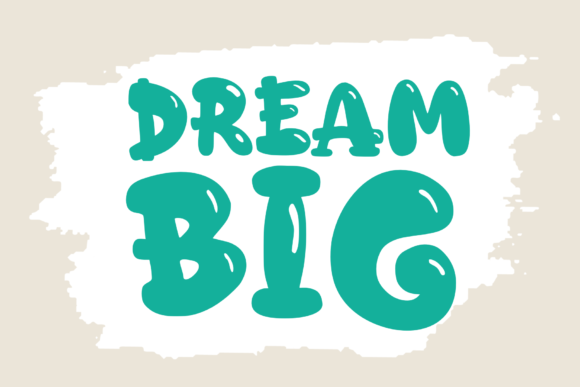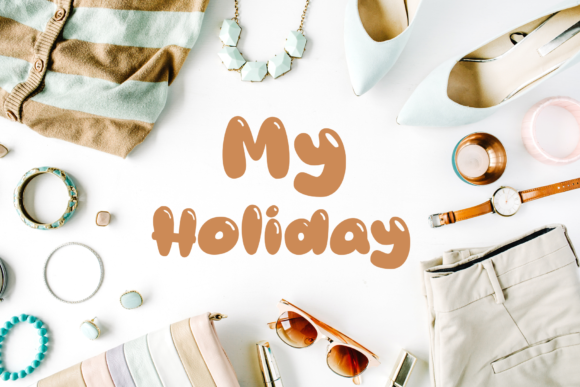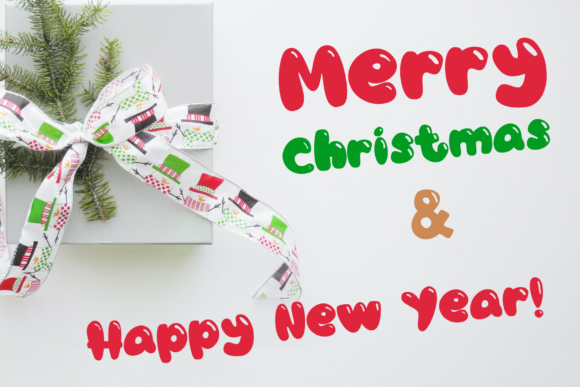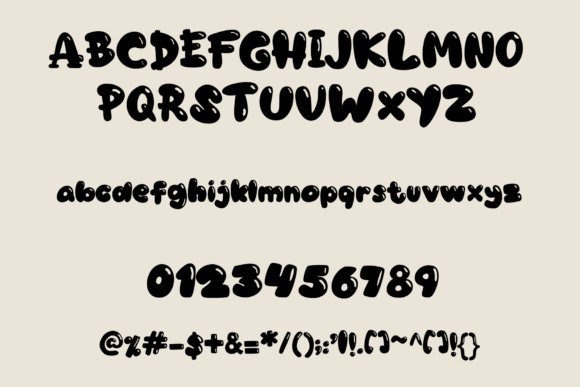
Adding a Splash of Whimsy to Your Designs
Have you ever been working on a project, pouring your heart and soul into it, and then suddenly, a spark of creativity strikes? You envision a playful, eye-catching element that brings your idea to life. For many designers, that moment is when they discover the perfect font – one that perfectly captures the essence of their creative vision. That’s where the BubbleNW Font comes in, a delightful display font that adds a touch of whimsy to any design.
With its cute and childish feel, BubbleNW Font is incredibly versatile, making it a valuable addition to any designer’s toolkit. Whether you’re creating a children’s book, a birthday invitation, or a social media campaign, this font is sure to make your ideas stand out. Its friendly feel and adaptability make it a go-to choice for designers looking to add a splash of personality to their work.
BubbleNW Font Key Features
- Unique Characteristics: Features a distinctive bubble-like design with rounded edges and subtle texture, adding a touch of whimsy to digital content.
BubbleNW Font Review
I’ve had the chance to work with the BubbleNW font, and I must say it’s a unique and attention-grabbing addition to any design project. ✨ The font’s bubbly, rounded design gives it a playful and approachable feel that’s perfect for creating a fun and friendly atmosphere. I’ve used it for branding, signage, and even for designing kids’ products, and it’s always been a hit.
One of the things I appreciate about BubbleNW is its versatility. ✨ It comes in a range of weights and styles, from light to bold, and even has some fun, decorative options that can add an extra touch of whimsy to your design. I’ve also been impressed with its legibility, even at smaller font sizes, making it a great choice for projects where readability is key.
- ⚠️ Limited availability in certain font sizes and weights, which can make it difficult to use for certain design projects.
- ⚠️ Some users may find the font’s playful design too distracting or overwhelming, especially in more serious or formal projects.
Overall, I think BubbleNW is a great addition to any designer’s toolkit. While it may have some limitations, its unique design and versatility make it a valuable asset for any project that requires a playful, approachable feel. I’d definitely recommend giving it a try and seeing how it can elevate your next design project.